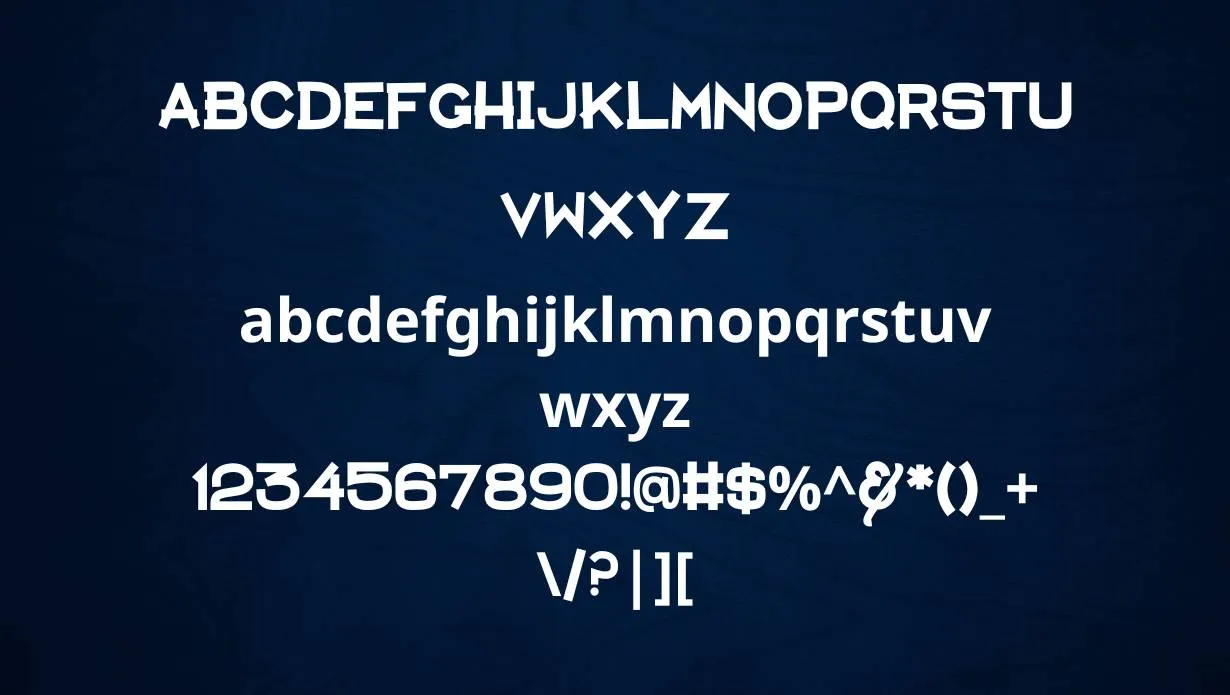
Aventura Font is your ticket to a visual journey. This typeface, with its mix of fancy and excitement, adds a touch of class to your designs.
Whether it’s a poster for a thrilling trip or an invite to a special event, Aventura Font turns your text into a captivating adventure. The geo sans font can be used to create exceptional designs with significant impact.